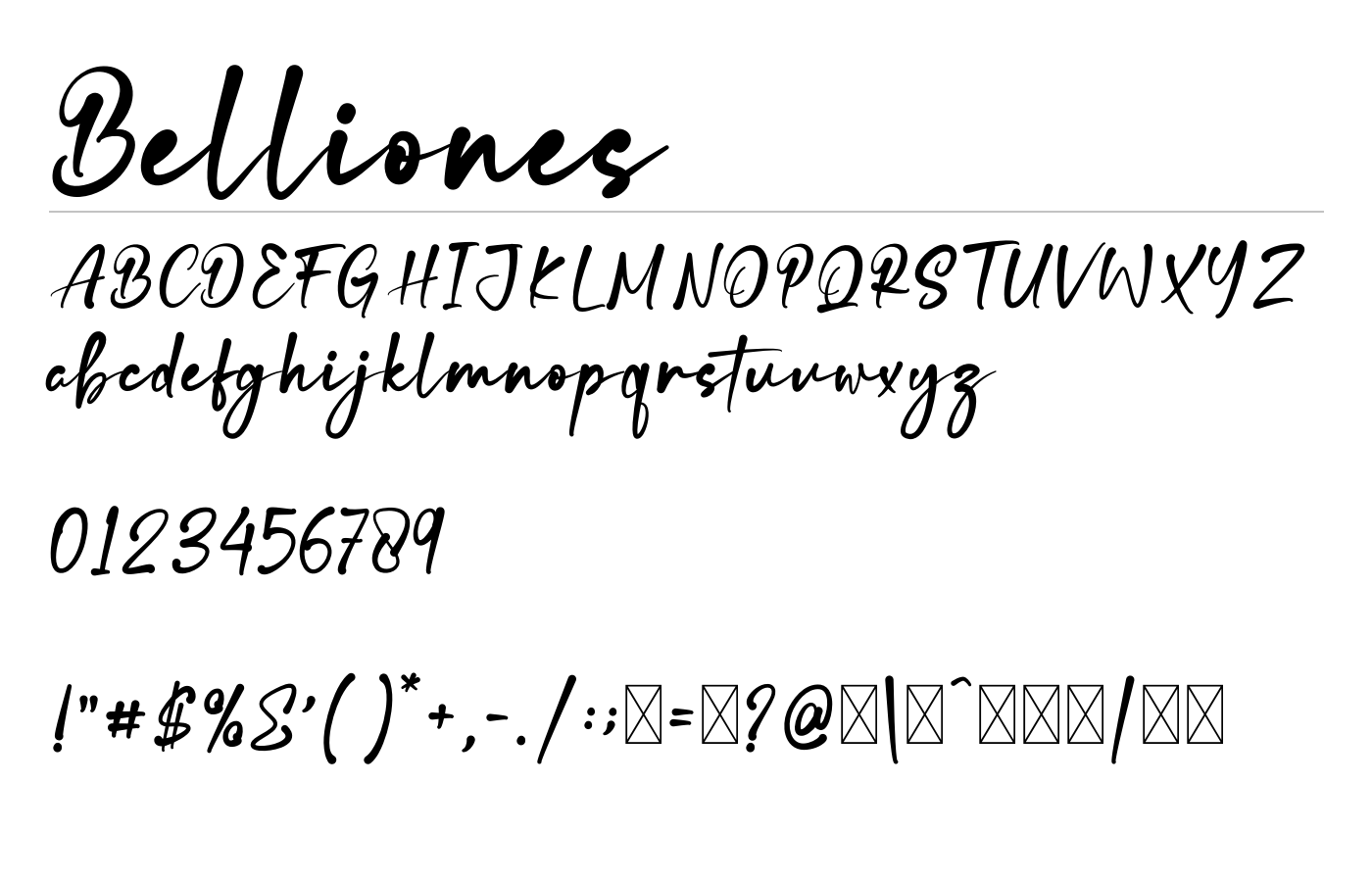
Belliones is a lively and elegant script font with a casual, handwritten feel that blends smooth, flowing strokes with slight variations in weight. Its tall x-height and distinctive letterforms create a friendly yet refined personality, making it ideal for branding, invitations, and creative projects that want to convey warmth and creativity. The font shines in headline and display uses where a personal, stylish touch is desired.
Belliones Font
About Belliones Font
| Font family | Belliones Font |